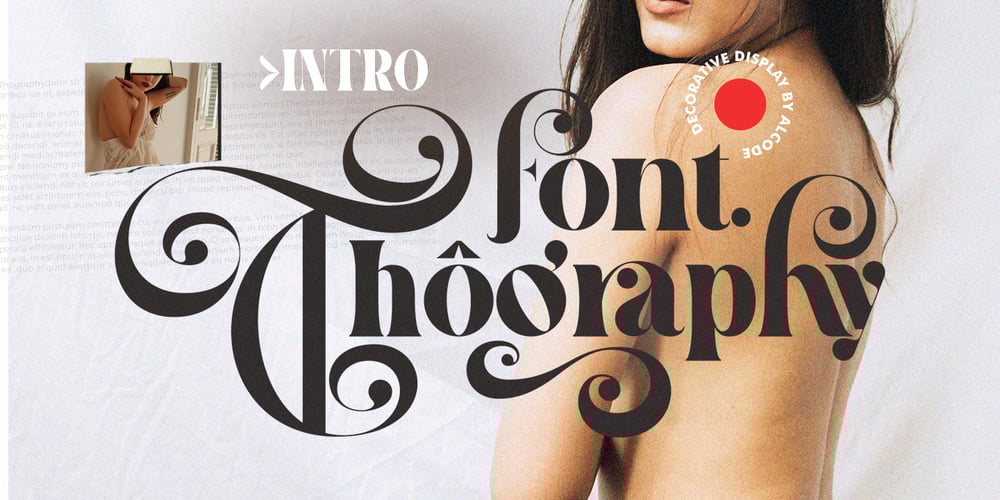
Font Thography
Font Thography font
Font Thography Font Family was designed by Sukjana Almunandar and published by Alcode. Font Thography contains 1 styles and family package options. Thography font is a new decorative typeface. This font has a very beautiful and elegant opentype feature, so that it can make users happy and can increase creativity or productivity, you can use this font very easily.